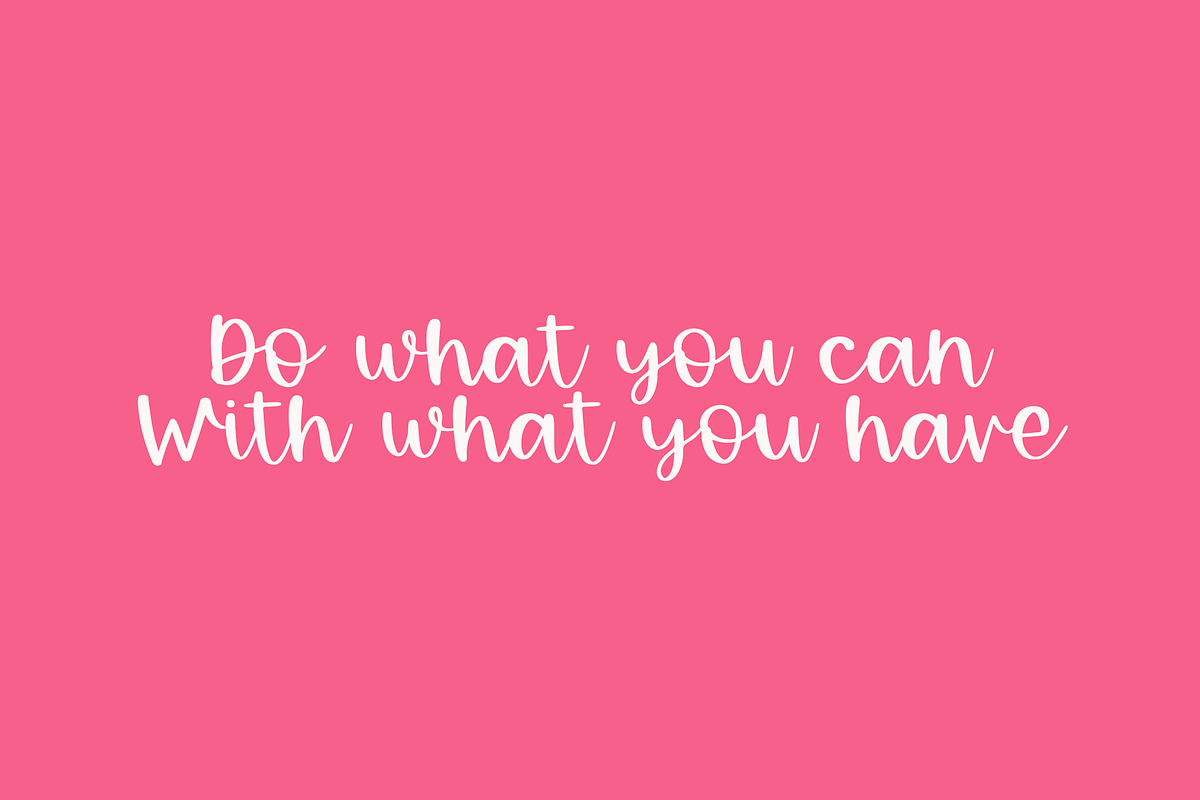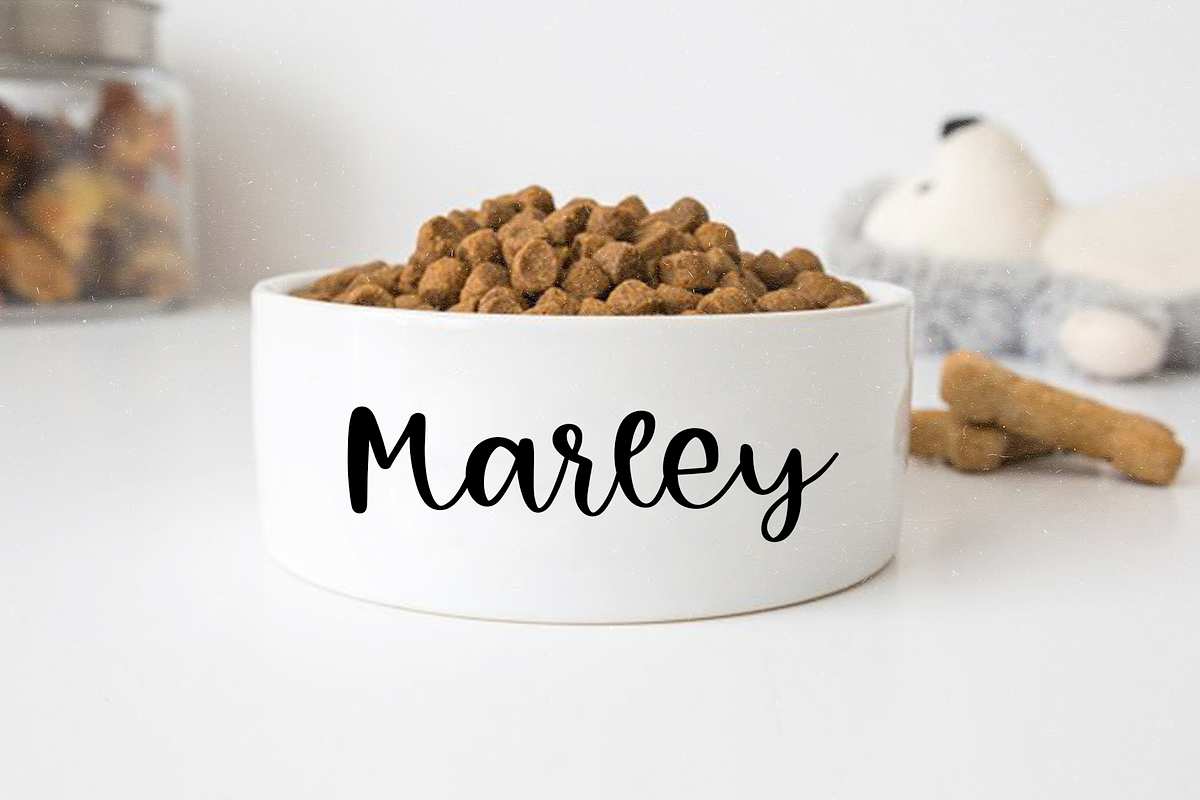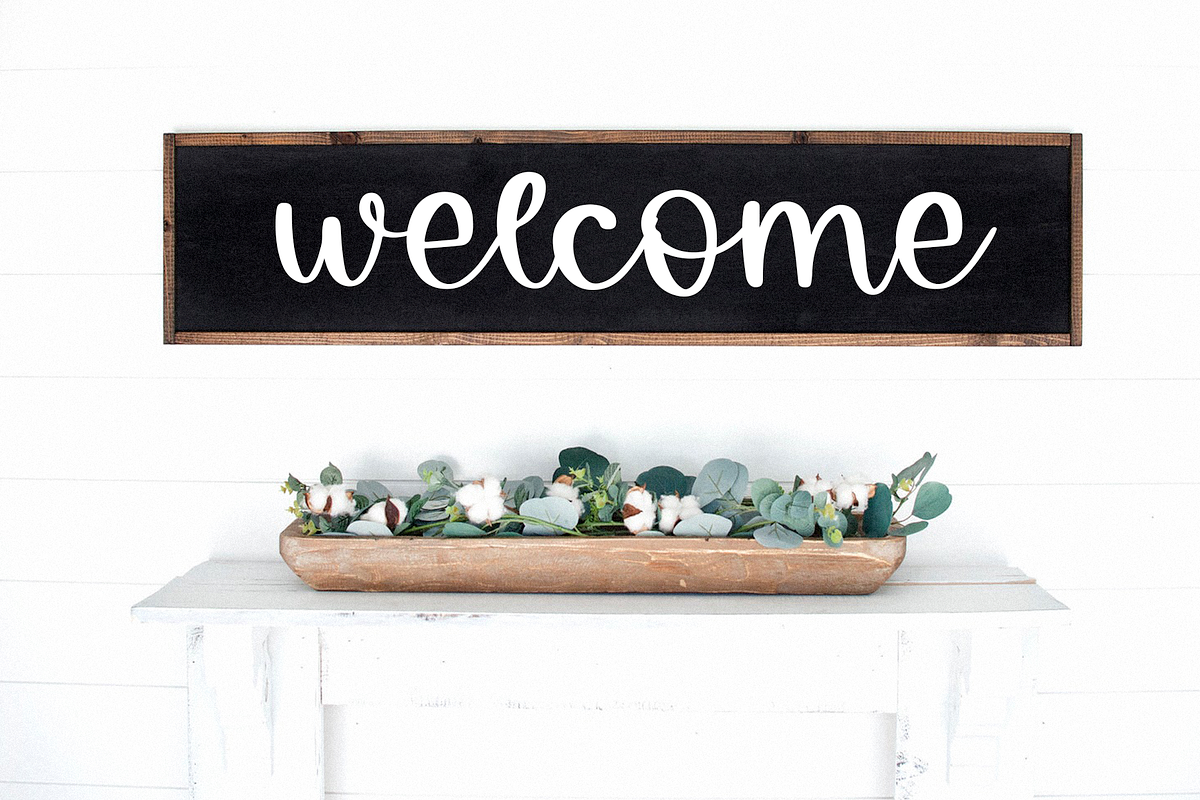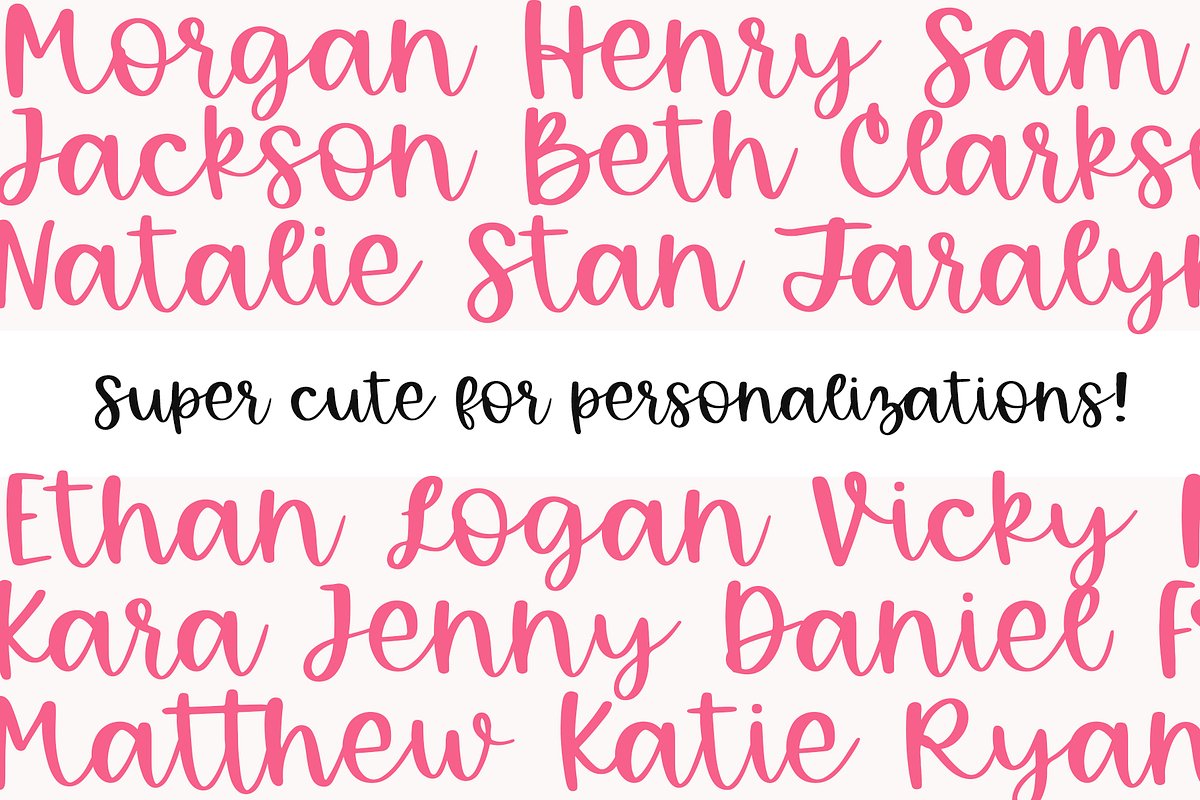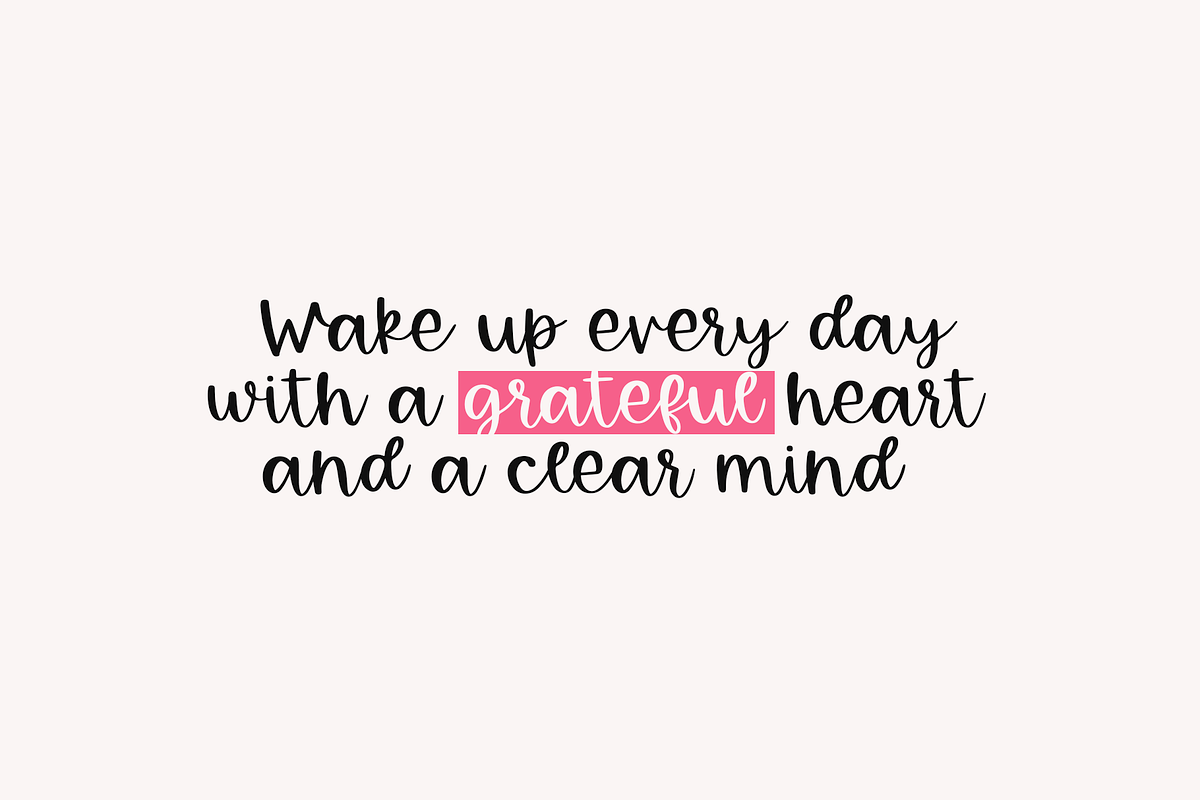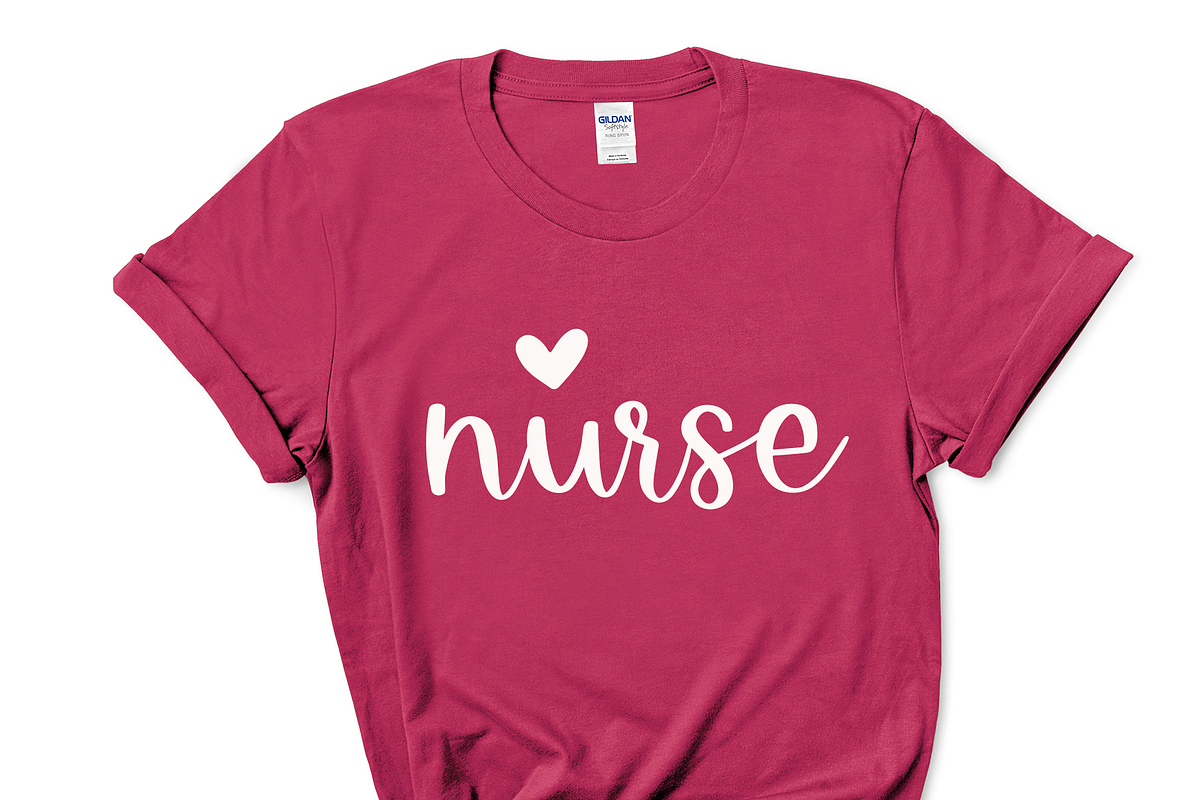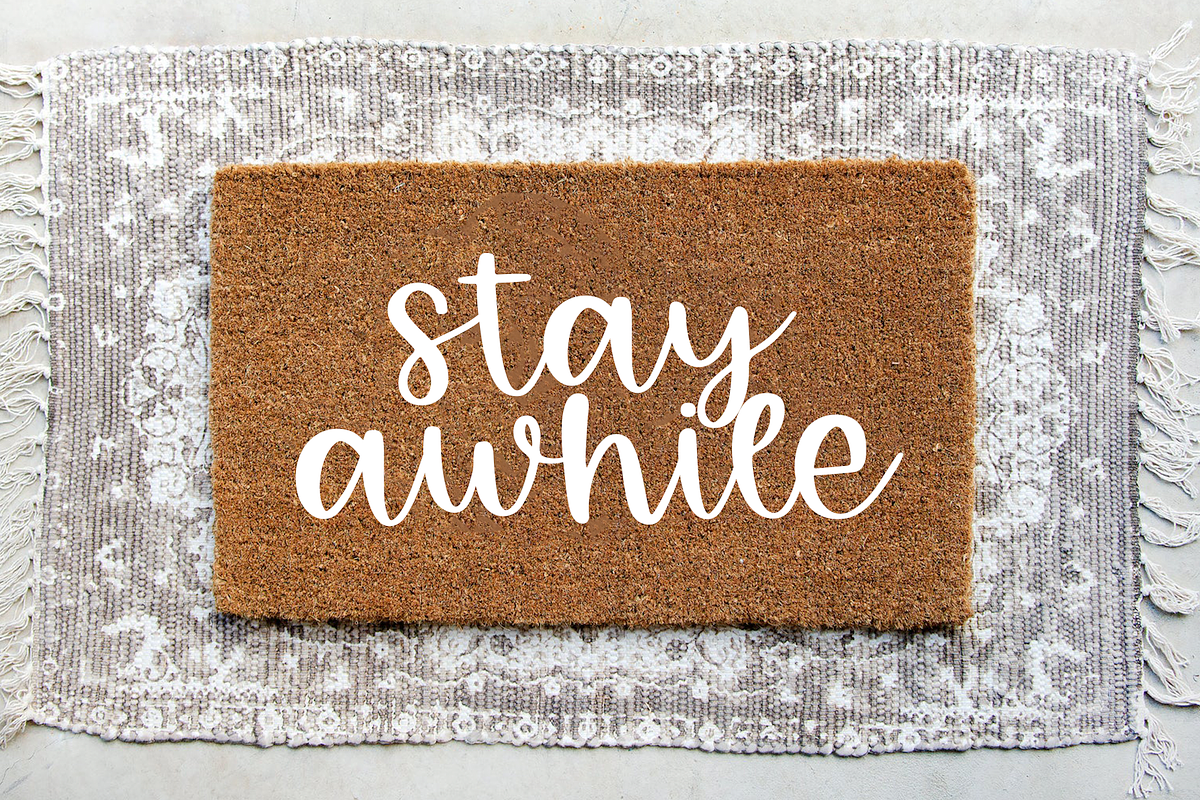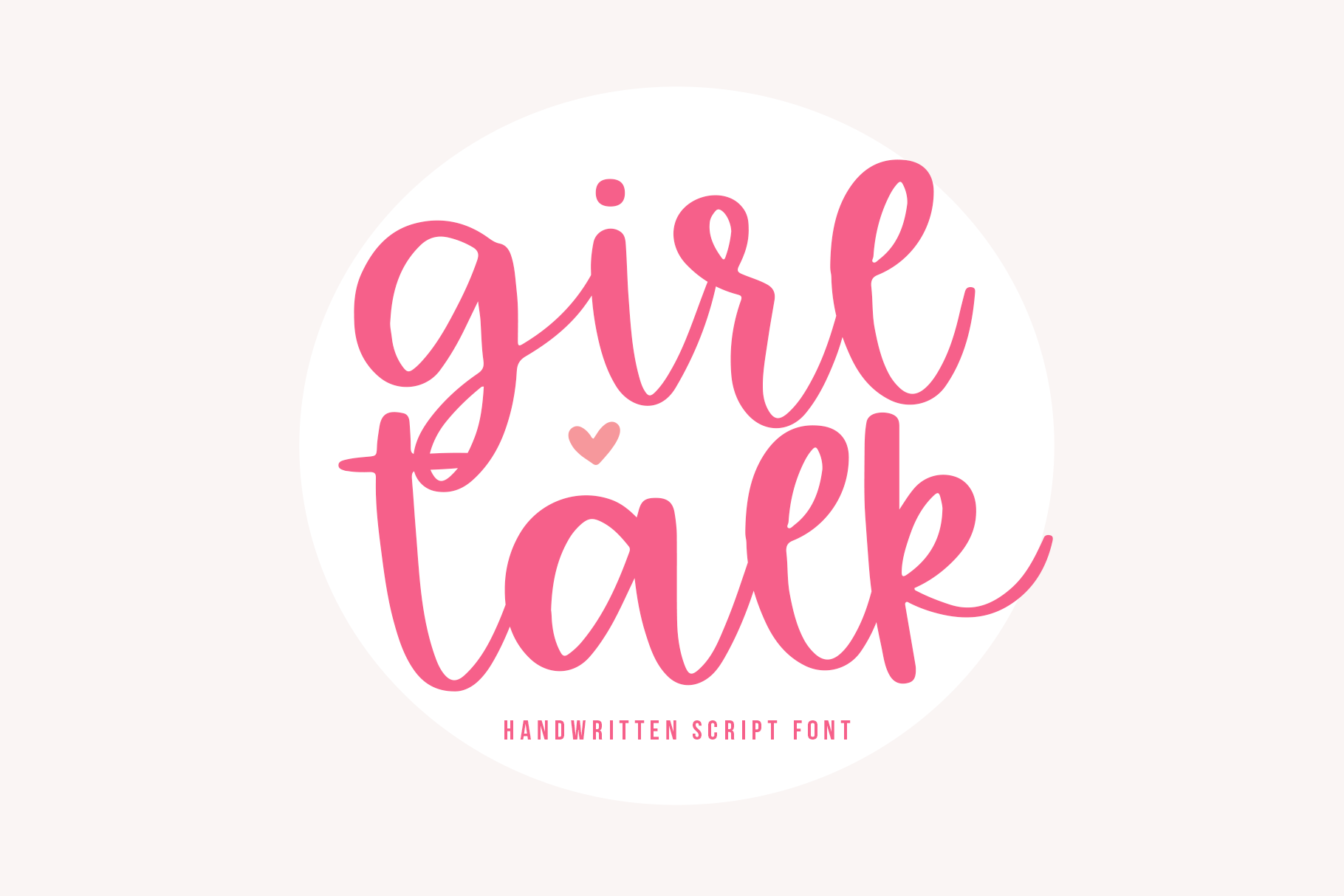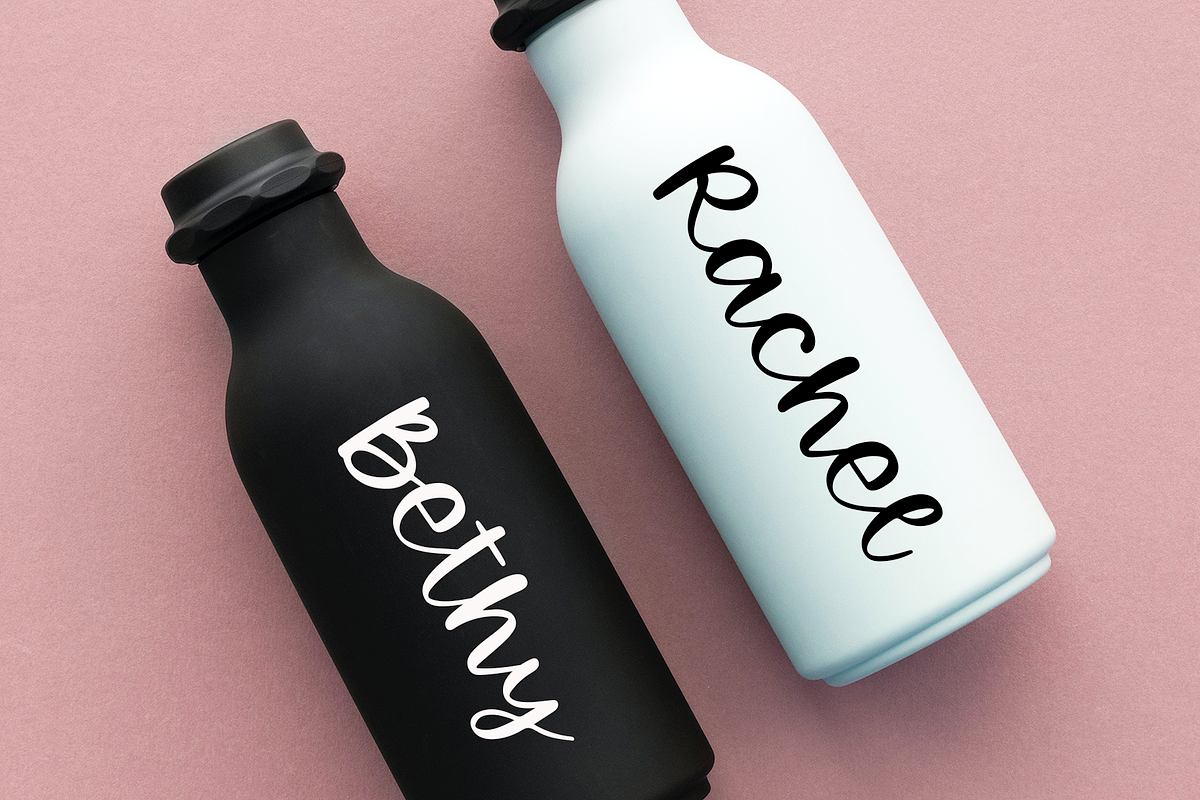
Girl Talk | Handwritten Script Font
Girl Talk is a cute handwritten script font!
This font is perfect for your crafting projects, branding, logos, personalization, social media, signs, home decor, instagram and more!